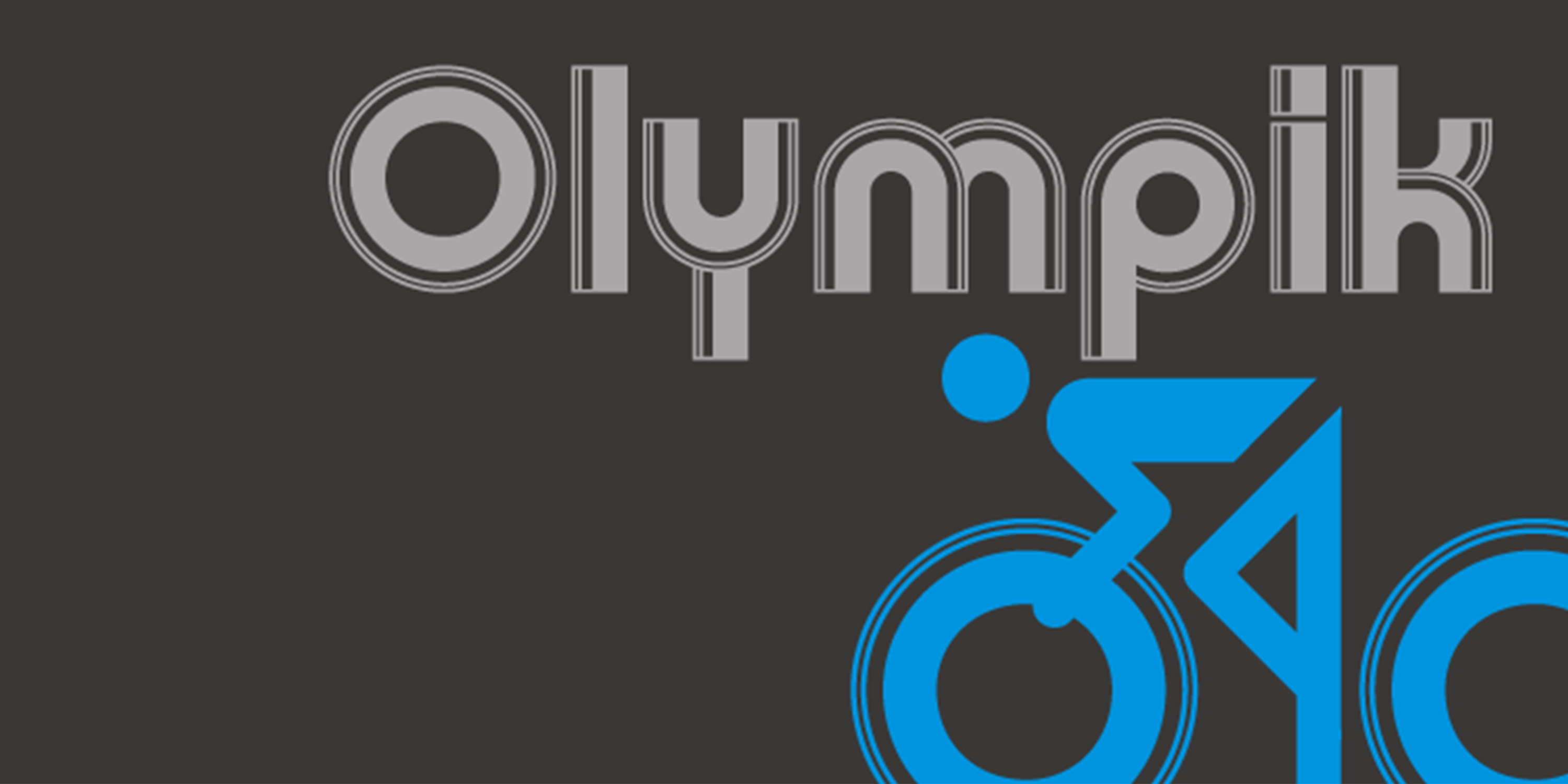
Olympik Font excels in sports branding, athletic team logos, fitness center signage, Olympic event materials, championship tournaments, sports merchandise design, stadium displays, athletic performance charts, competitive gaming graphics, and sports media publications where dynamic, powerful typography reflects strength, competition, and victory.
What makes Olympik Font exciting is its athletic-inspired design that captures the spirit of competitive excellence and physical achievement through bold, energetic letterforms. This font features strong geometric construction with dynamic angles, muscular stroke weights, and aerodynamic character shapes that convey speed, power, and determination. The confident styling and assertive presence make it ideal for applications requiring motivation, energy, and the triumphant spirit of athletic competition.
Olympik Font family includes Light, Regular, Medium, Bold, and Ultra Bold weights, each maintaining the font's characteristic athletic energy while offering different levels of visual impact for sports-related design hierarchies. The family also features condensed versions for tight spacing requirements, plus italic styles that add movement and speed to the typography. Each variant preserves the font's competitive character while providing flexibility for diverse sporting applications.
The Olympik Font Free Download provides access to typography that embodies the essence of athletic achievement and competitive spirit. This font's dynamic styling makes it perfect for sports marketing, fitness branding, and competitive event communications where energy and motivation are essential. Its versatility extends to digital scoreboards, mobile sports apps, and contemporary athletic brand communications requiring powerful visual presence.
Olympik Font supports comprehensive character coverage including numerals optimized for scoreboards, athletic symbols, and extensive punctuation necessary for sports statistics and competitive documentation. The font's carefully engineered metrics ensure excellent readability in high-energy environments while maintaining the bold character that defines its athletic personality. Its robust construction performs reliably from small jersey numbers to massive stadium signage.
The font's victorious presence makes it particularly effective for championship branding, sports team identity, and competitive event materials where inspiration and achievement are paramount. Whether designing Olympic ceremonies, professional sports communications, or fitness motivation campaigns, Olympik Font delivers championship-level performance that motivates audiences and celebrates the pursuit of athletic excellence.